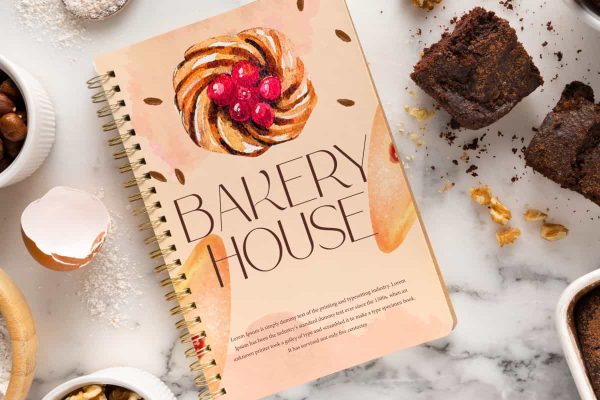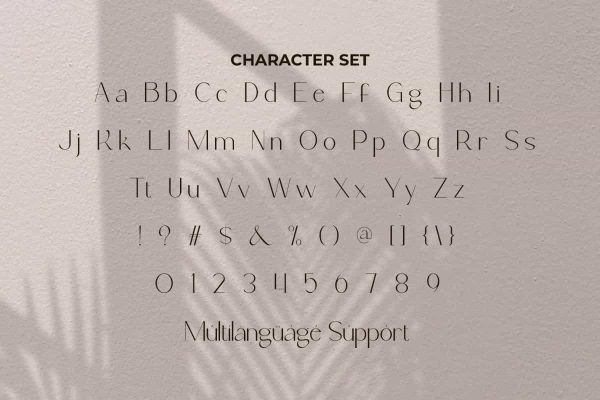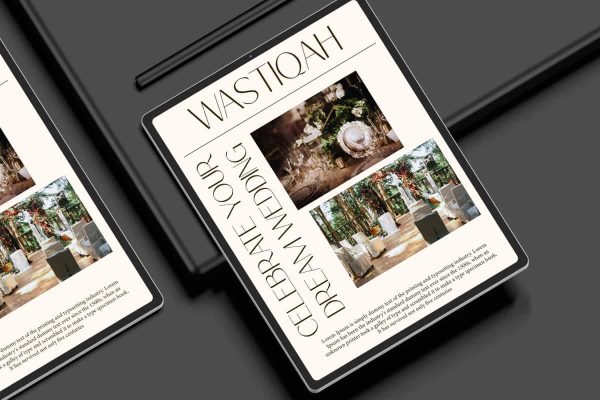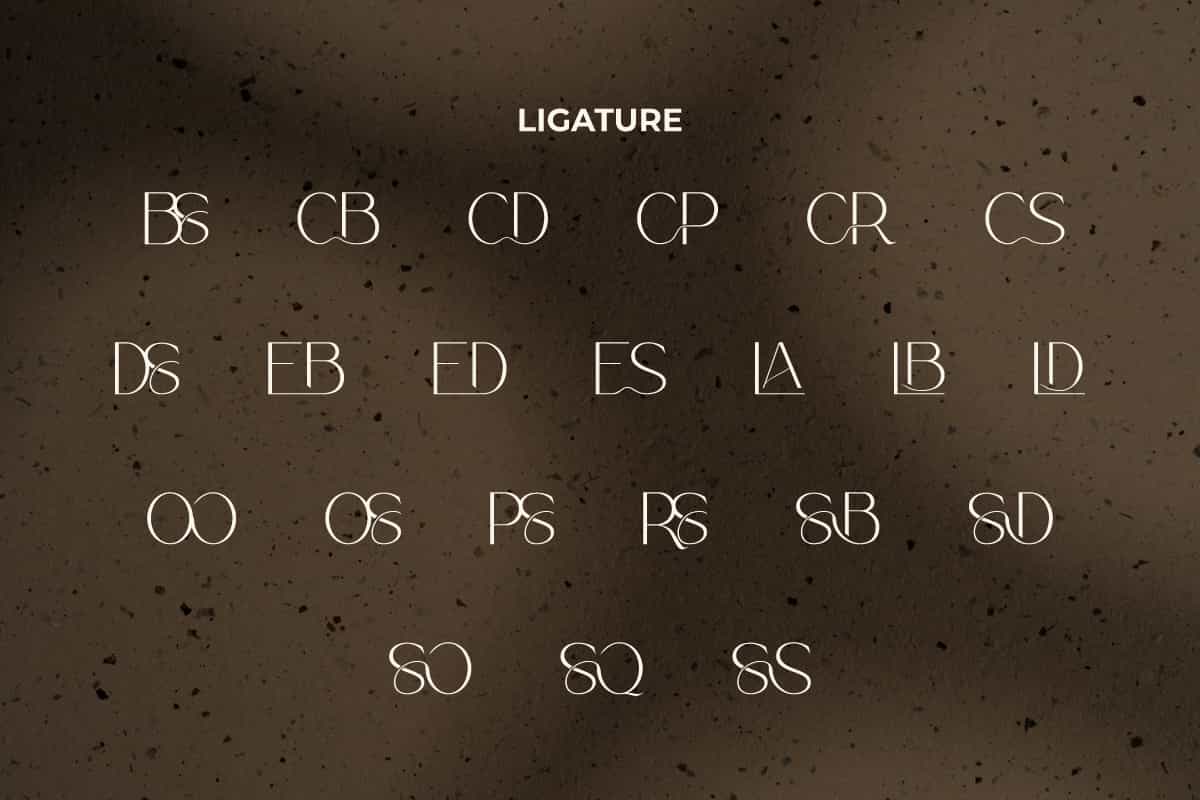
Ecdar Filbert Font
Ecdar Filbert Font is a thin,modern,clean and elegant sans serif font that will make your designs looks precious!
Ecdar Filbert Font includes a full set of Uppercase and Lowercase Letters, Numerals, Punctuation, Symbol, and Ligature characters. This fancy font will be suitable for various industries, such as accessories and jewelry, advertisement, event or wedding organizer, fashion, florist, homeware, perfume, photography, printing, publishing, real estate, etc. What you get: